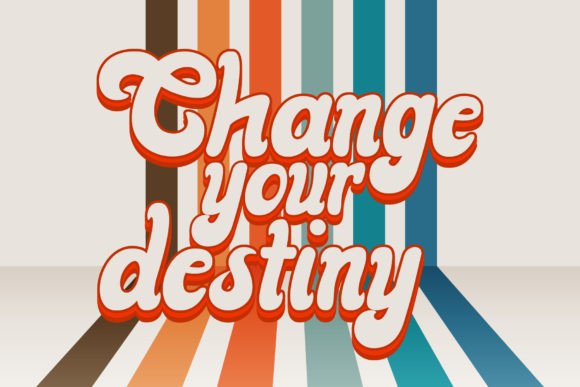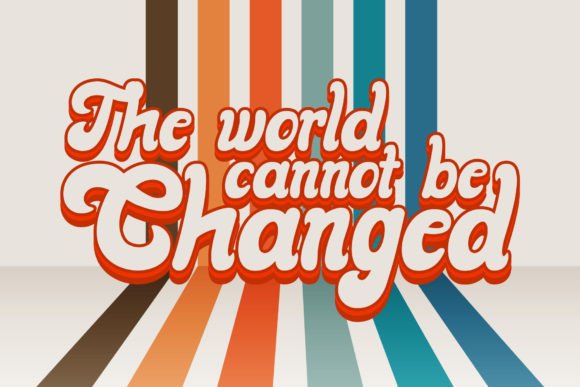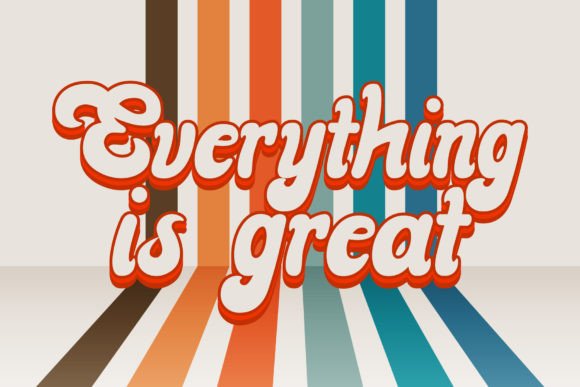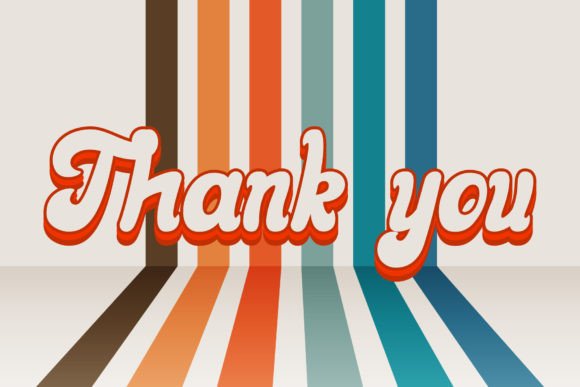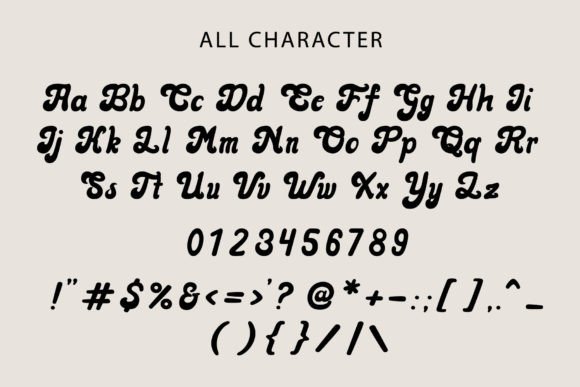
Introduction to Retro Change Font
Retro Change is a cool, vintage-style handwritten font.
Use it to add that special retro touch to any design idea It can be used for logos, branding, invitations, stationery, wedding designs, social media posts, and much more.
Key Features of Retro Change Font
Why Choose Retro Change Font?
Retro Change Font offers exceptional quality and versatility, making it a valuable addition to your design toolkit. Whether you’re creating for personal projects or commercial use, Retro Change Font delivers professional results.